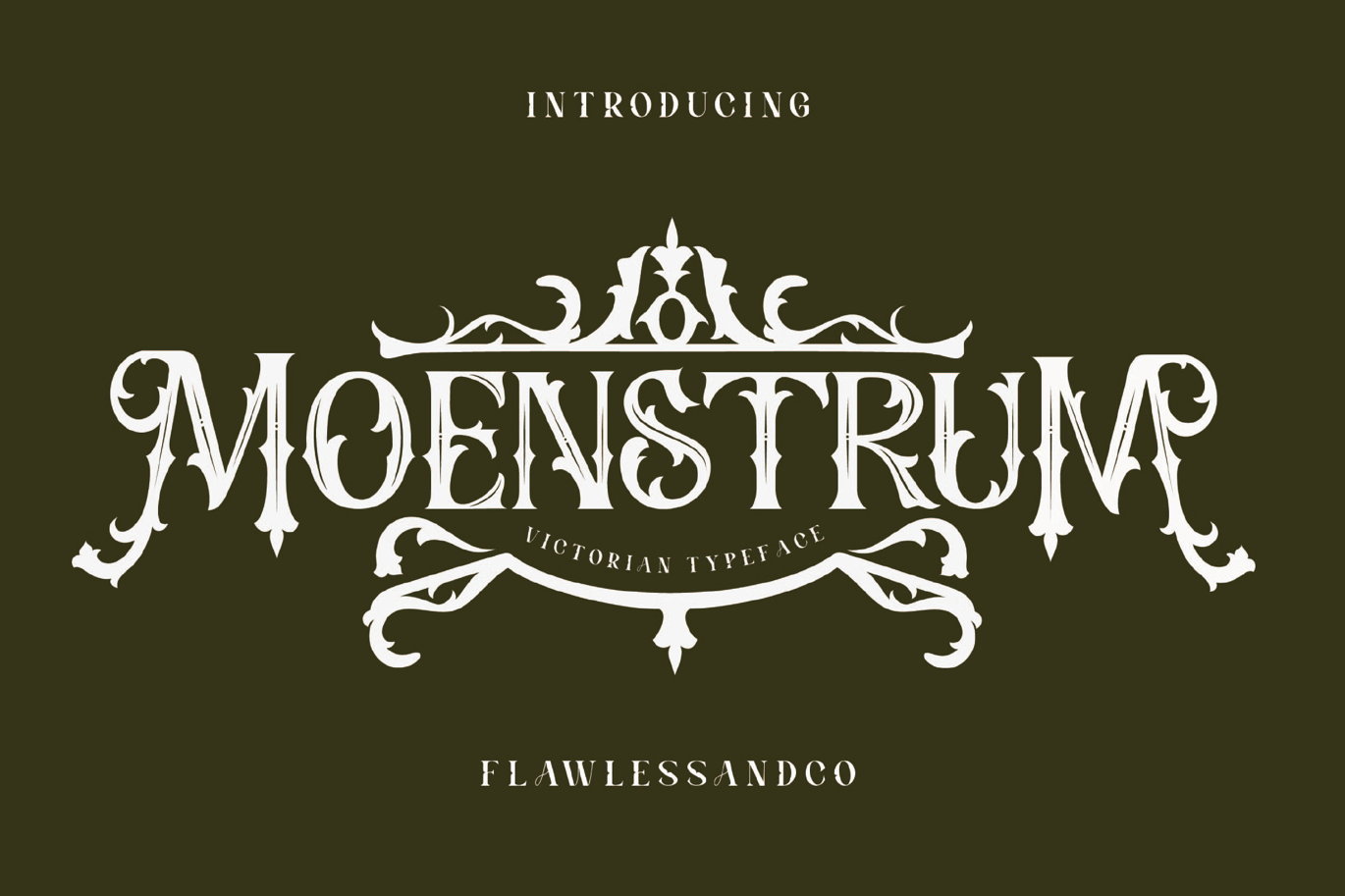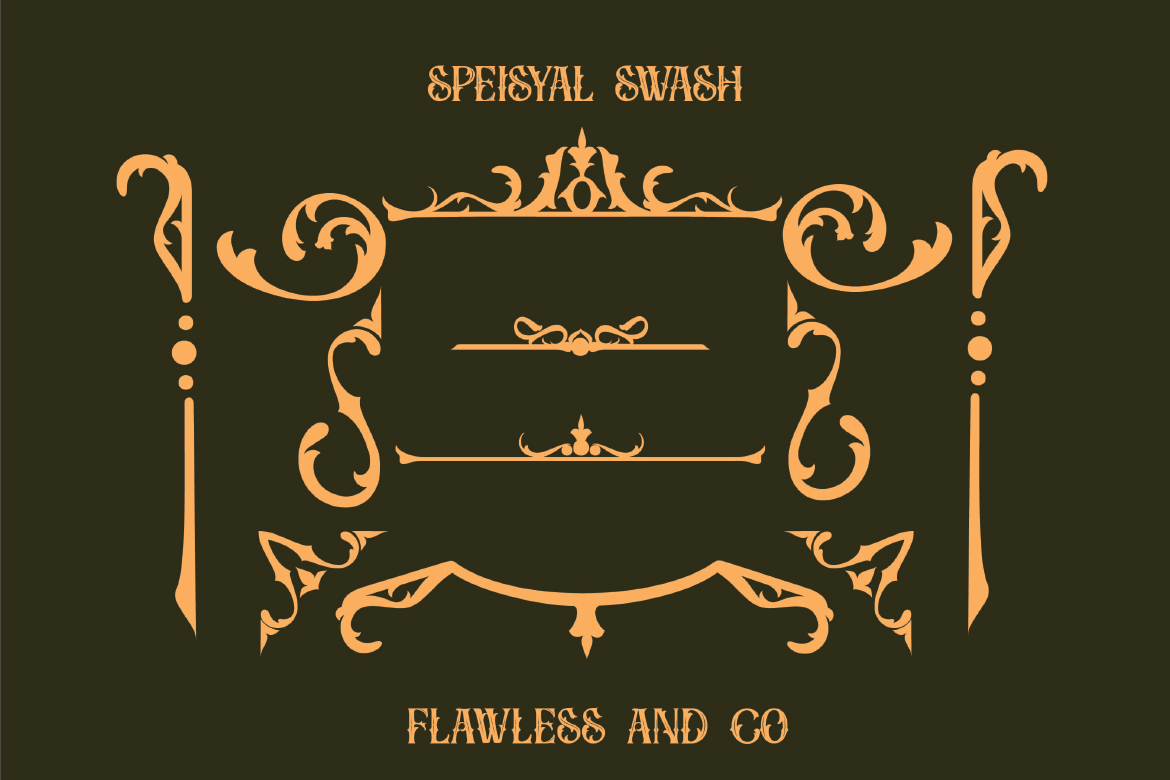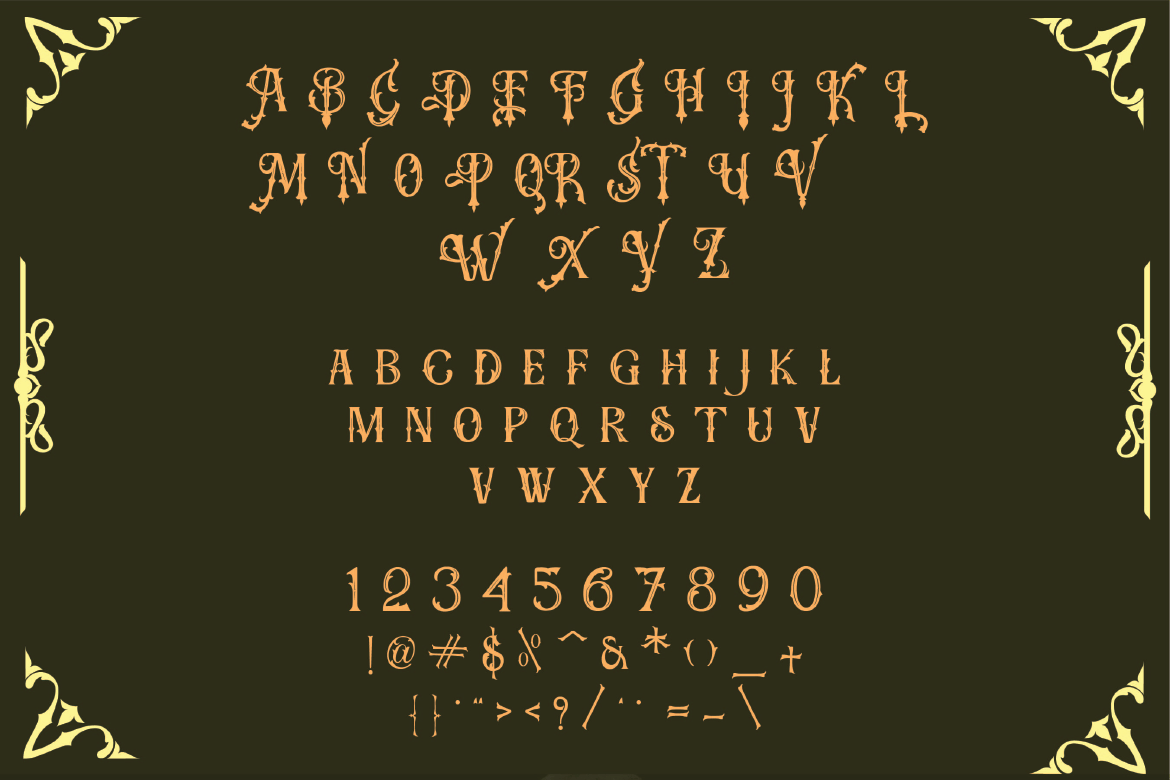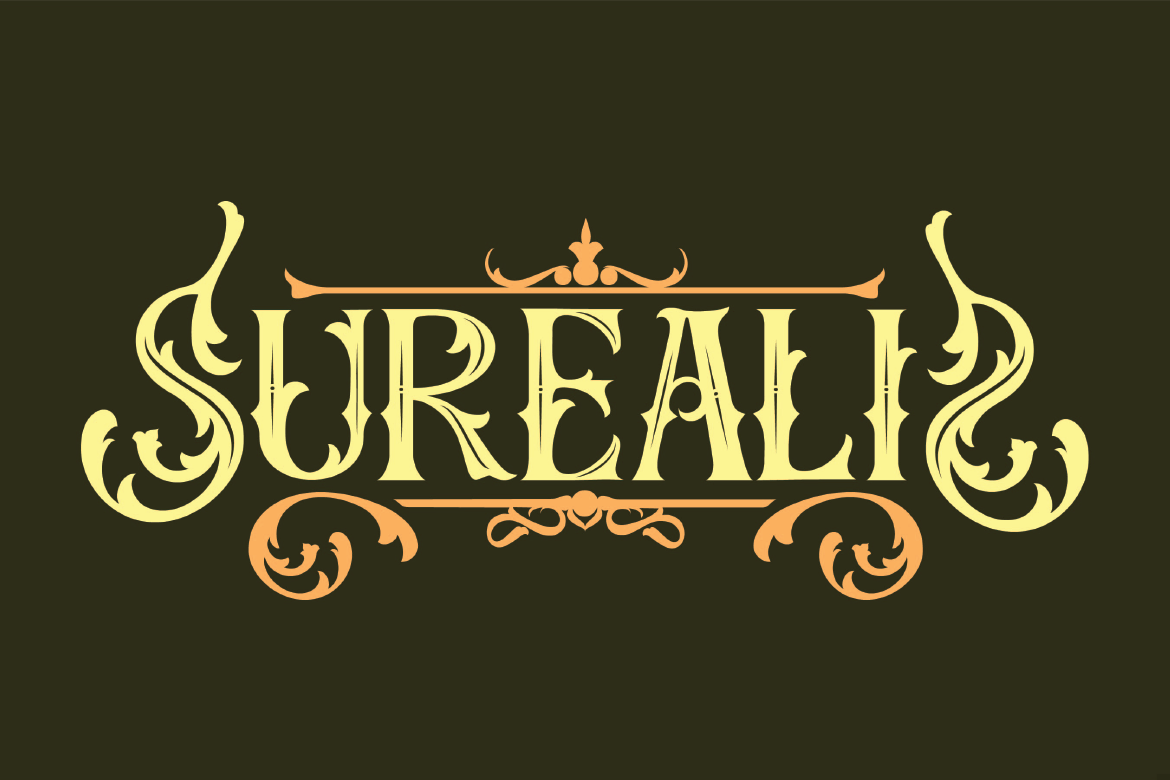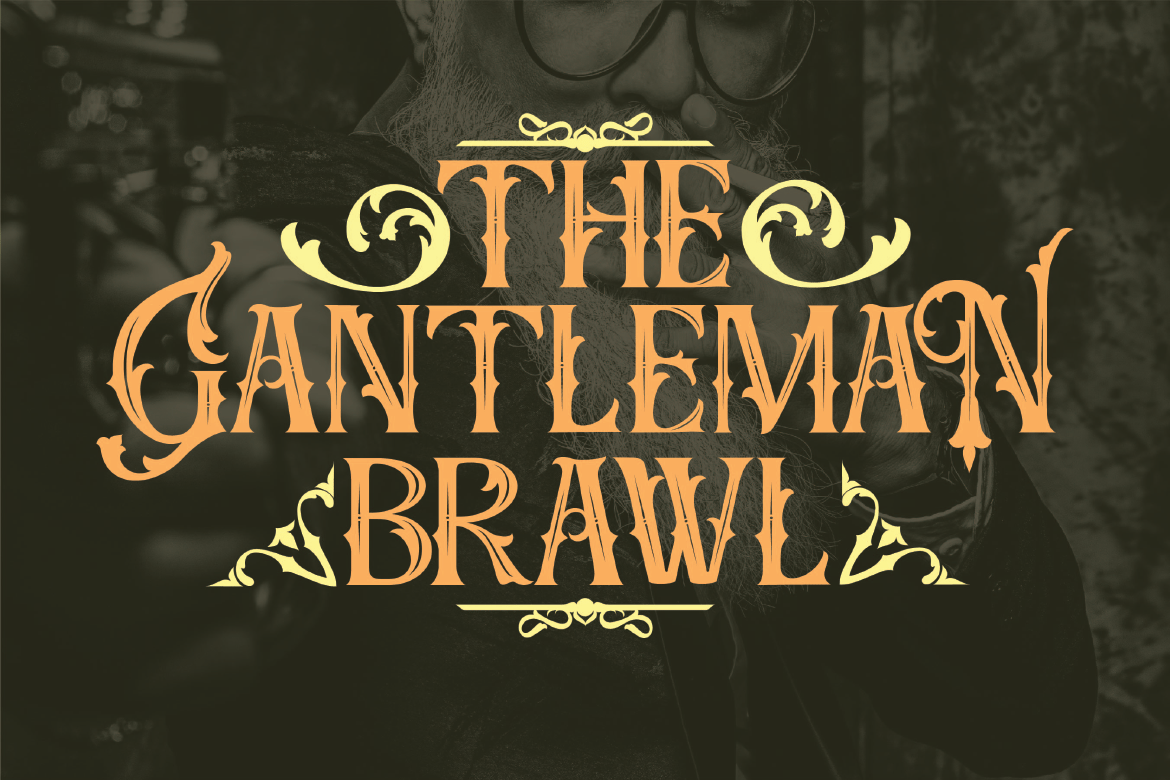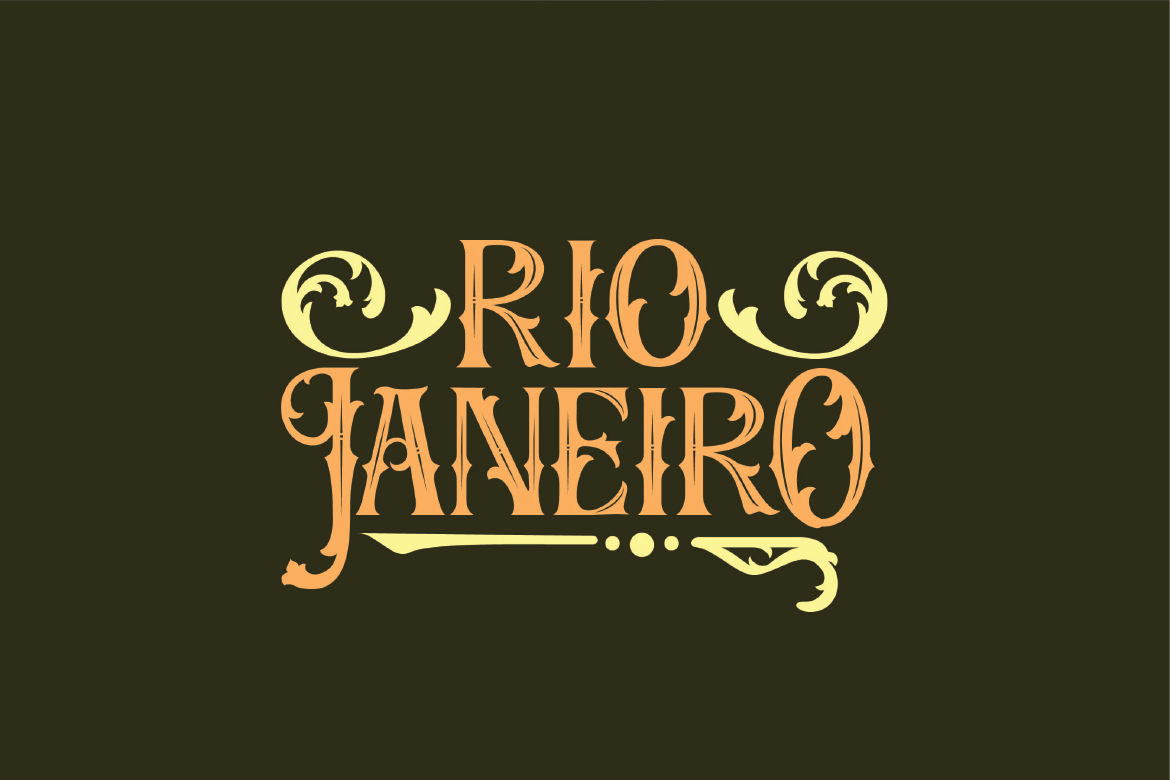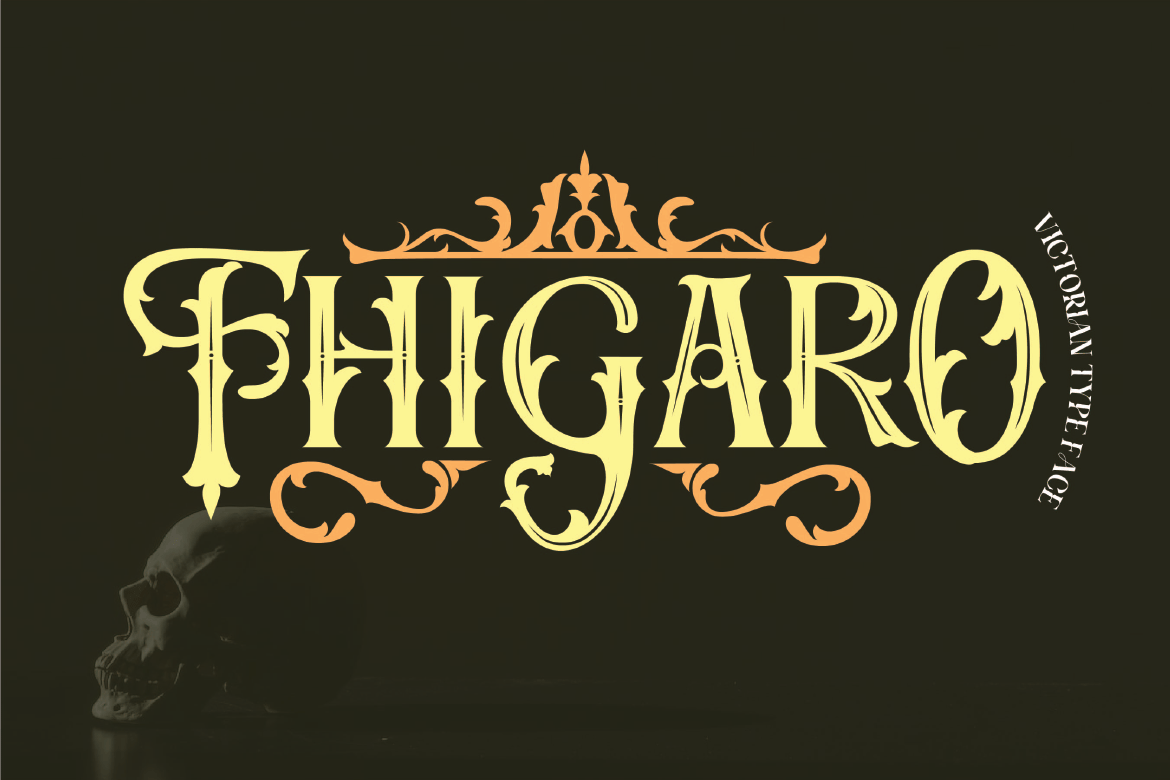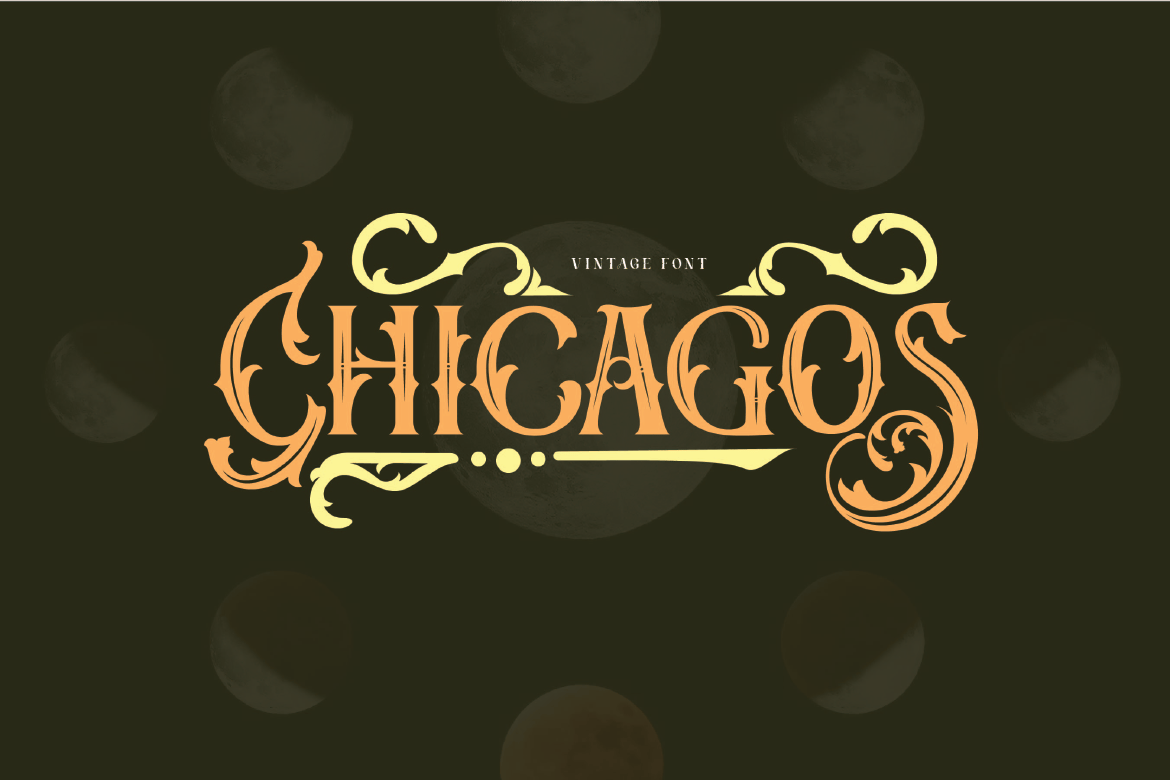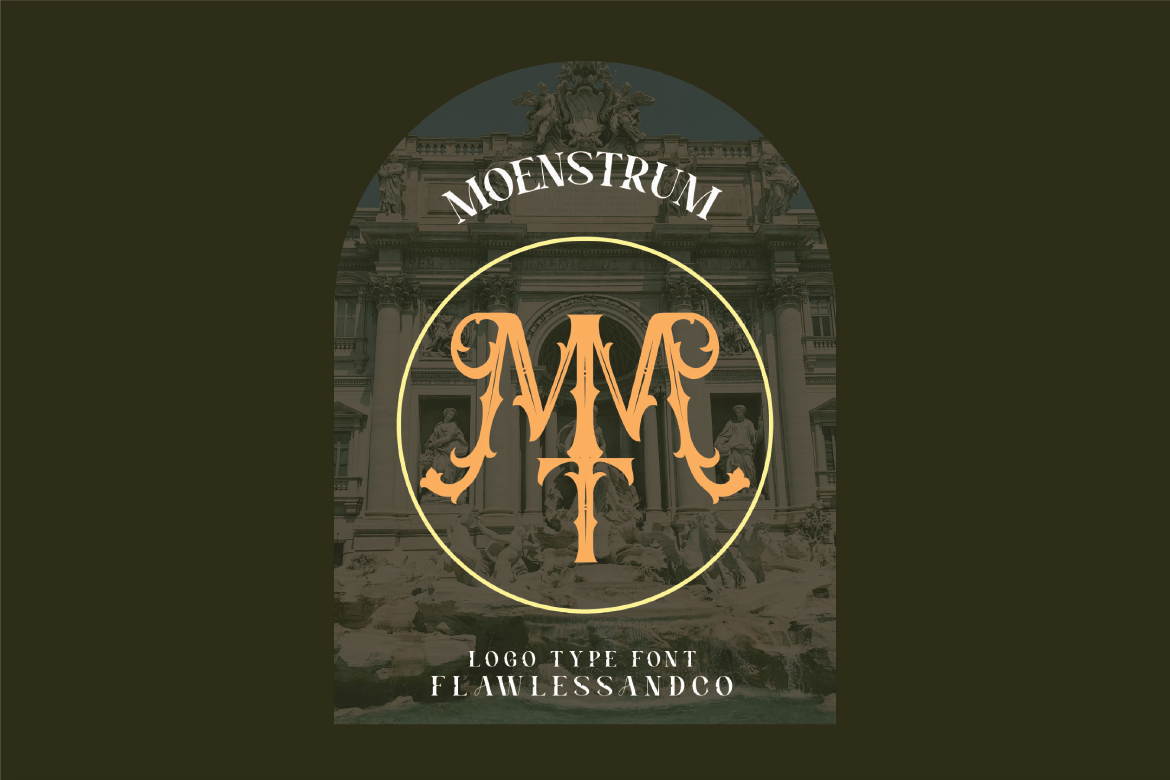
Moenstrum – Victorian Tattoo Font
Introduction our new “MOENSTRUM” Modern Blackletter Font that gives Elegant style is perfect for your design.
Alternate Character